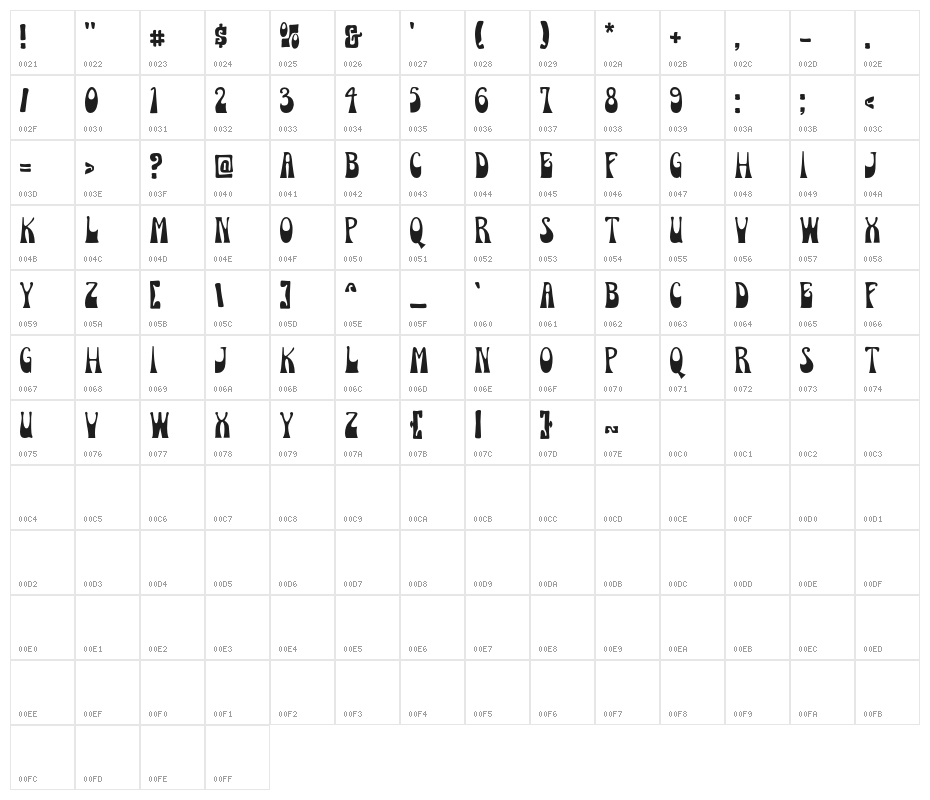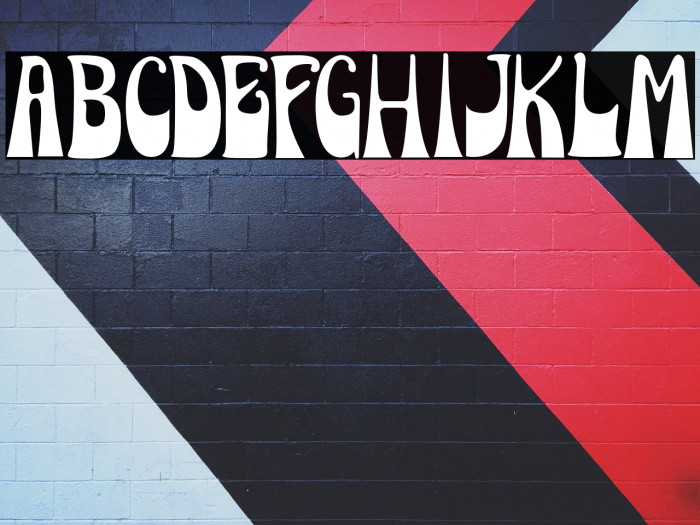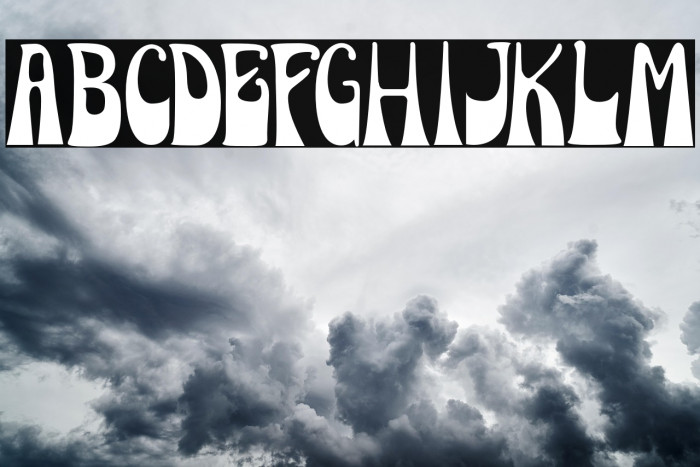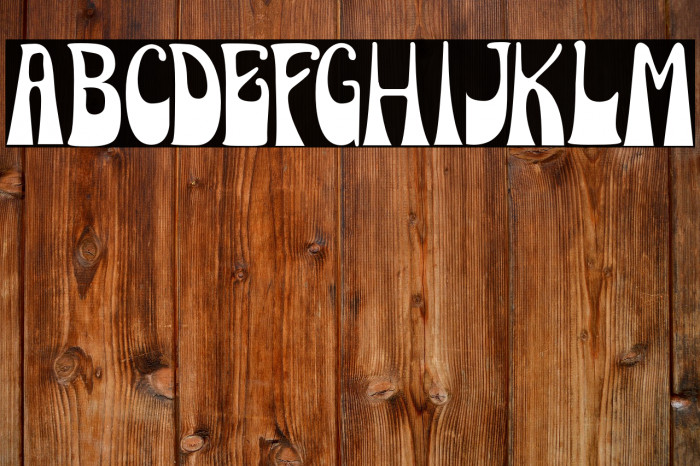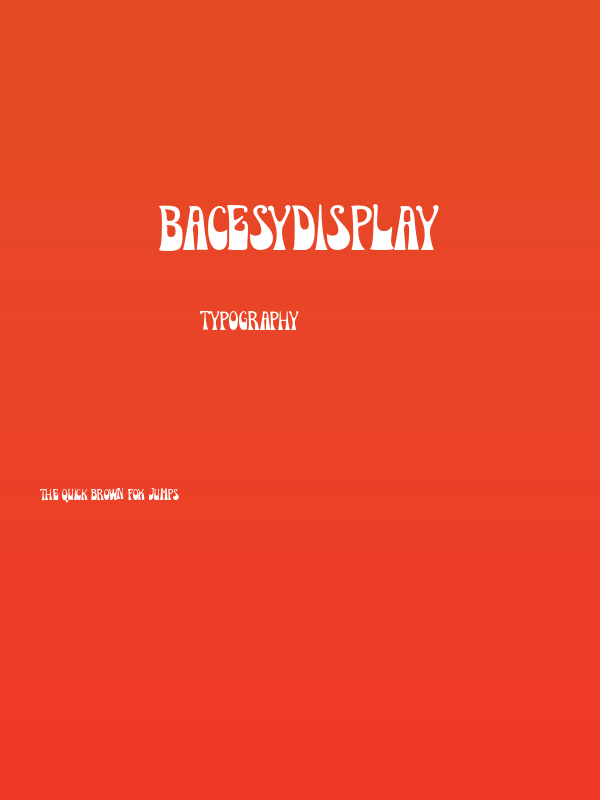
BacesyDisplay Font
This font features a bold and playful design with exaggerated curves and varying stroke widths, creating a dynamic and eye-catching appearance. The letters have a whimsical, almost cartoon-like quality, with some characters displaying unique and unexpected shapes. The numbers and special characters follow the same playful style, making the font suitable for creative and informal applications. The overall look is both fun and distinctive, making it ideal for projects that require a touch of personality and flair.
| Overall Style | Playful, Whimsical |
| Proposed Projects | Ideal for children's books, playful branding, posters, and creative event invitations. |